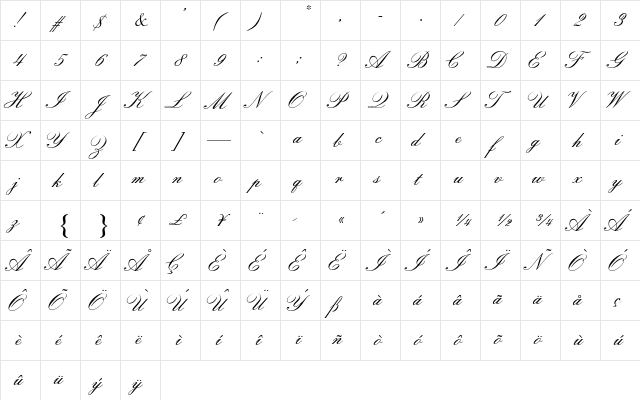
Florentine Script II AT Regular
| Foundry | Miles Inc |
Design Context for Florentine Script II AT Typeface
Florentine Script II AT flows with the natural rhythm of handwritten lettering, making it ideal for designs that call for warmth and personal expression.
Font Pairing: Combine Florentine Script II AT with a simple geometric sans for maximum contrast — the tension between flowing curves and clean structure is a classic typographic pairing.
Pro Tip: Pair Florentine Script II AT with a clean sans-serif for supporting text. The contrast between fluid script and geometric structure creates an elegant typographic hierarchy.